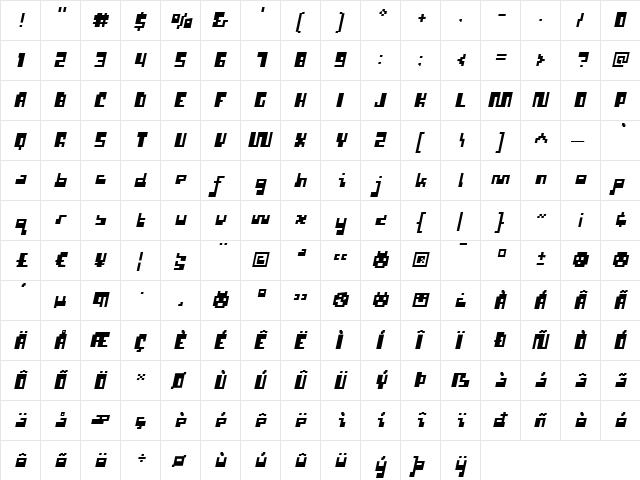
P22 Cusp Square Slant Square Slant
P22 Cusp Square Slant Font Details
| Style | Square Slant |
| Designer | James Grieshaber |
Design Context for P22 Cusp Square Slant Typeface
P22 Cusp Square Slant takes a measured approach to typography — its balanced proportions and neutral character make it a reliable workhorse for both digital and print work.